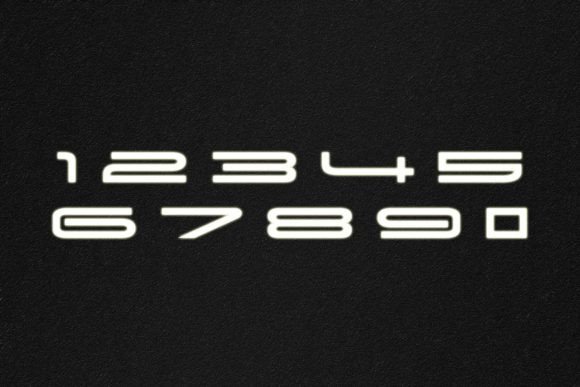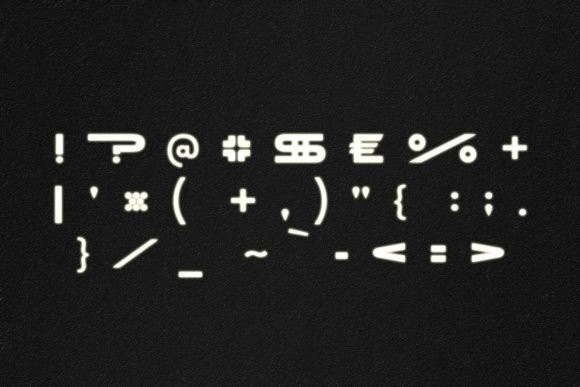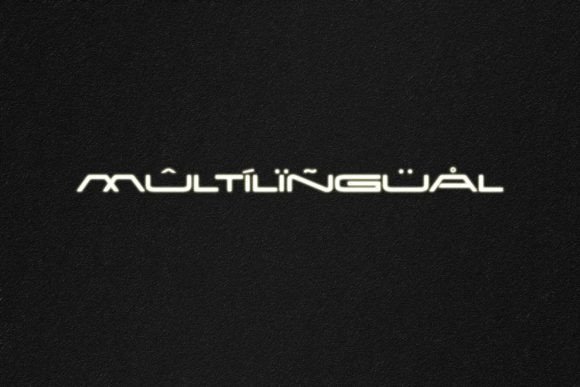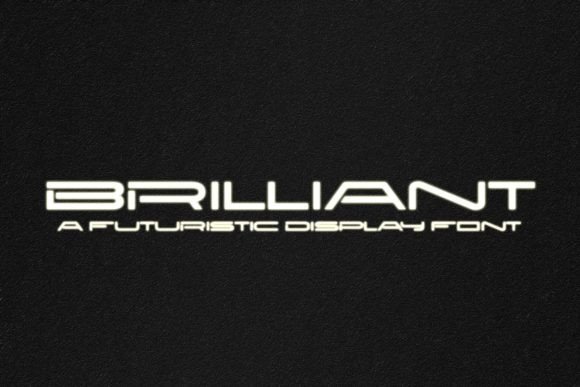
Introducing Brilliant Font: The Ultimate Sci-Fi Display Font
Are you a designer or crafter looking for a font that can add a touch of futurism and sophistication to your designs? Look no further than Brilliant Font, a cool and futuristic display font that’s perfect for projects that require a sci-fi vibe.
What is Brilliant Font?
Brilliant Font is a modern and bold display font that’s designed to make a statement. Its sleek and futuristic design makes it perfect for use in a variety of design projects, from posters and flyers to logos and branding materials. With its unique and eye-catching style, Brilliant Font is sure to grab attention and leave a lasting impression.
Key Features of Brilliant Font
- Modern and Bold Design: Brilliant Font features a modern and bold design that’s perfect for making a statement.
- Sci-Fi Vibe: The font’s futuristic style gives it a distinct sci-fi vibe that’s perfect for projects that require a touch of futurism.
- Highly Versatile: Brilliant Font can be used in a variety of design projects, from posters and flyers to logos and branding materials.
- Easily Readable: Despite its bold and futuristic design, Brilliant Font is still highly readable, making it perfect for use in a variety of design projects.
How to Use Brilliant Font in Your Designs
Brilliant Font is highly versatile and can be used in a variety of design projects. Here are a few ideas for how you can use Brilliant Font in your designs:
- Posters and Flyers: Use Brilliant Font to create eye-catching posters and flyers that grab attention and leave a lasting impression.
- Logos and Branding Materials: Use Brilliant Font to create modern and futuristic logos and branding materials that help your brand stand out.
- Web Design: Use Brilliant Font to add a touch of futurism and sophistication to your website.
- Social Media Graphics: Use Brilliant Font to create eye-catching social media graphics that help your brand stand out.
Tips for Getting the Most Out of Brilliant Font
Here are a few tips for getting the most out of Brilliant Font:
- Use it Sparingly: Because of its bold and futuristic design, Brilliant Font can be overwhelming if used too much. Use it sparingly to add a touch of futurism and sophistication to your designs.
- Pair it with Other Fonts: Brilliant Font pairs well with other fonts, especially sans-serif fonts. Experiment with pairing it with other fonts to create a unique and eye-catching design.
- Experiment with Colors: Brilliant Font looks great in a variety of colors, from bright and bold to metallic and neon. Experiment with different colors to find the one that works best for your design.
Brilliant Font is a cool and futuristic display font that’s perfect for designers and crafters who want to add a touch of futurism and sophistication to their designs. With its modern and bold design, sci-fi vibe, and high versatility, Brilliant Font is sure to become a go-to font for designers and crafters. Whether you’re creating posters and flyers, logos and branding materials, or social media graphics, Brilliant Font is the perfect choice.